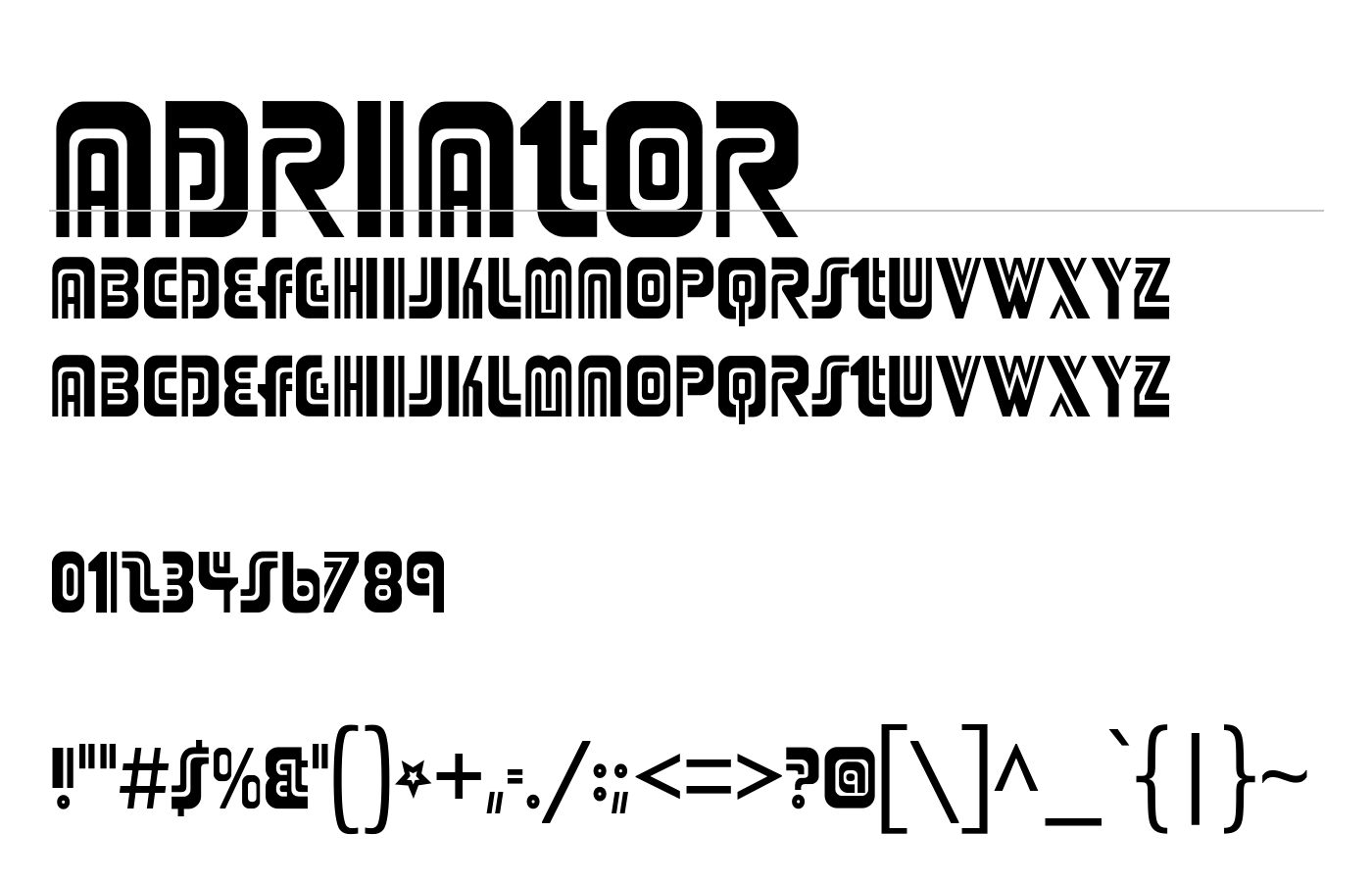
Adriator is a bold, geometric sans serif font with a modern and futuristic vibe. Its unique, condensed letterforms featuring layered and rounded edges create a distinctive, eye-catching style perfect for branding, posters, and headlines where a strong, avant-garde presence is desired. This font works especially well for creative industries looking to make a stylish and innovative statement.
Adriator Font
About Adriator Font
| Designer | Ray Larabie |